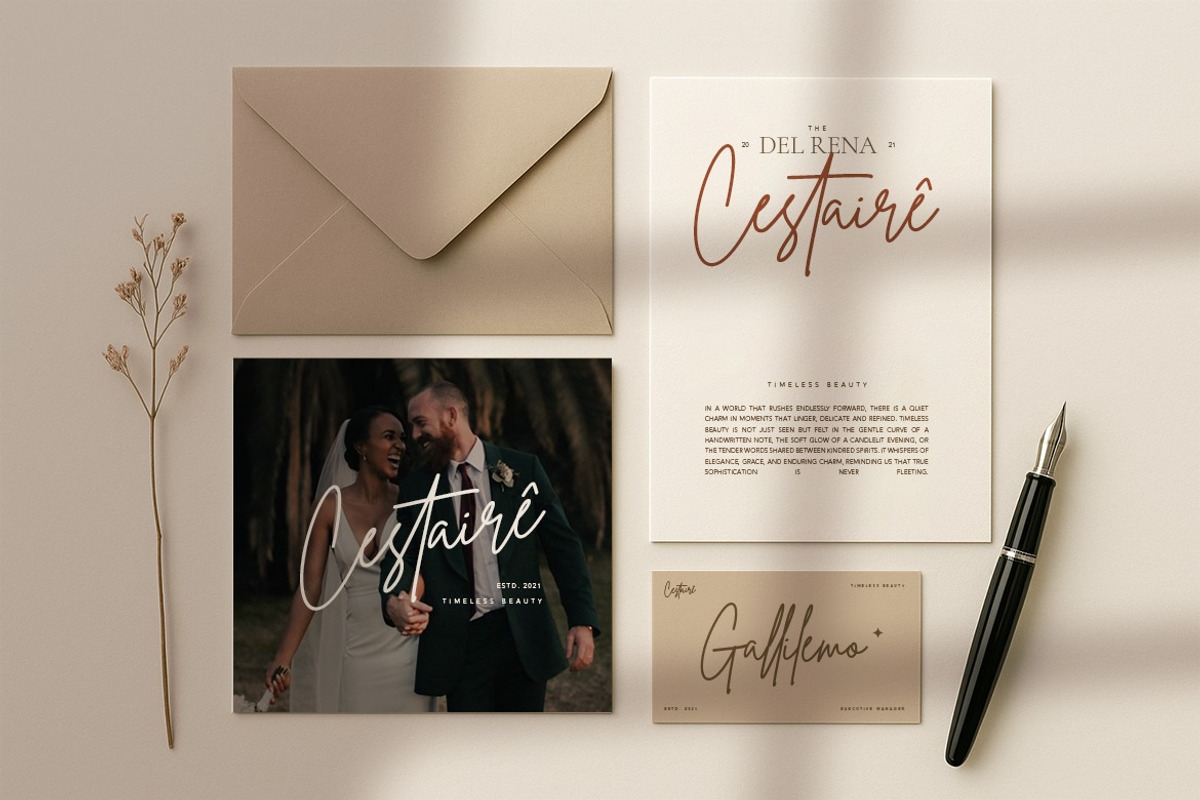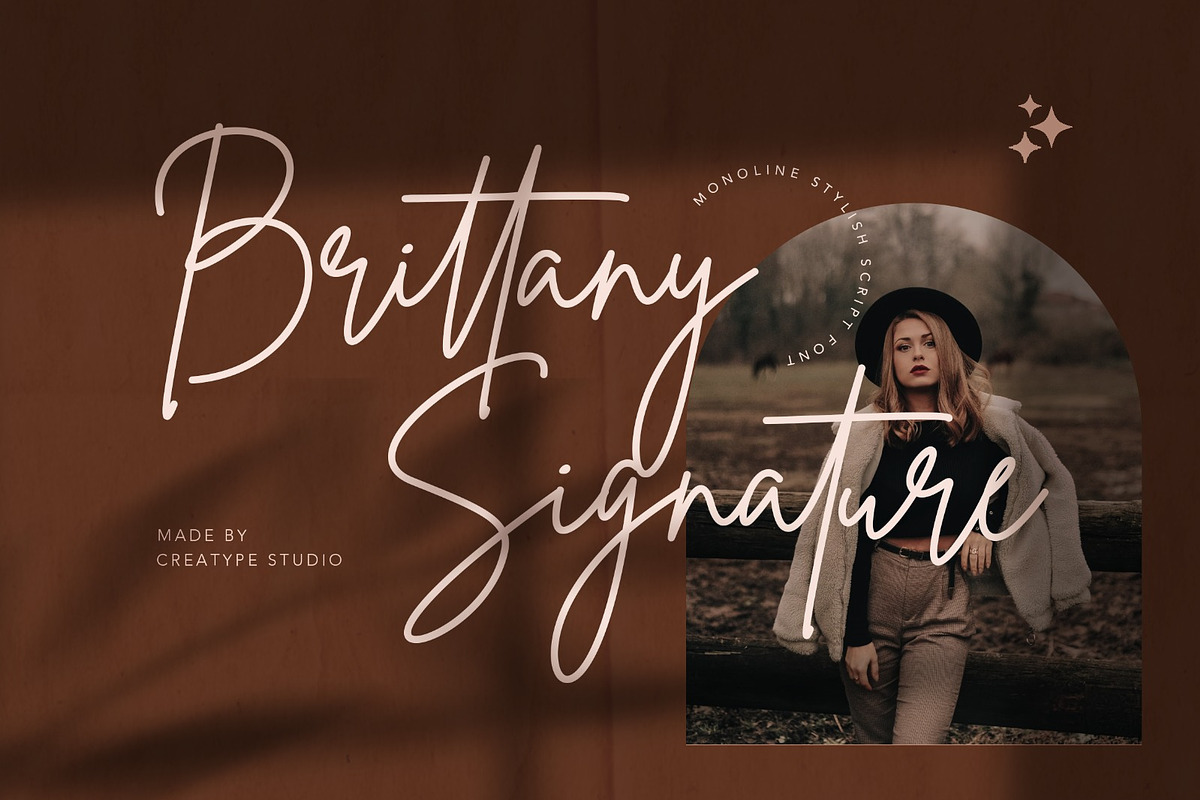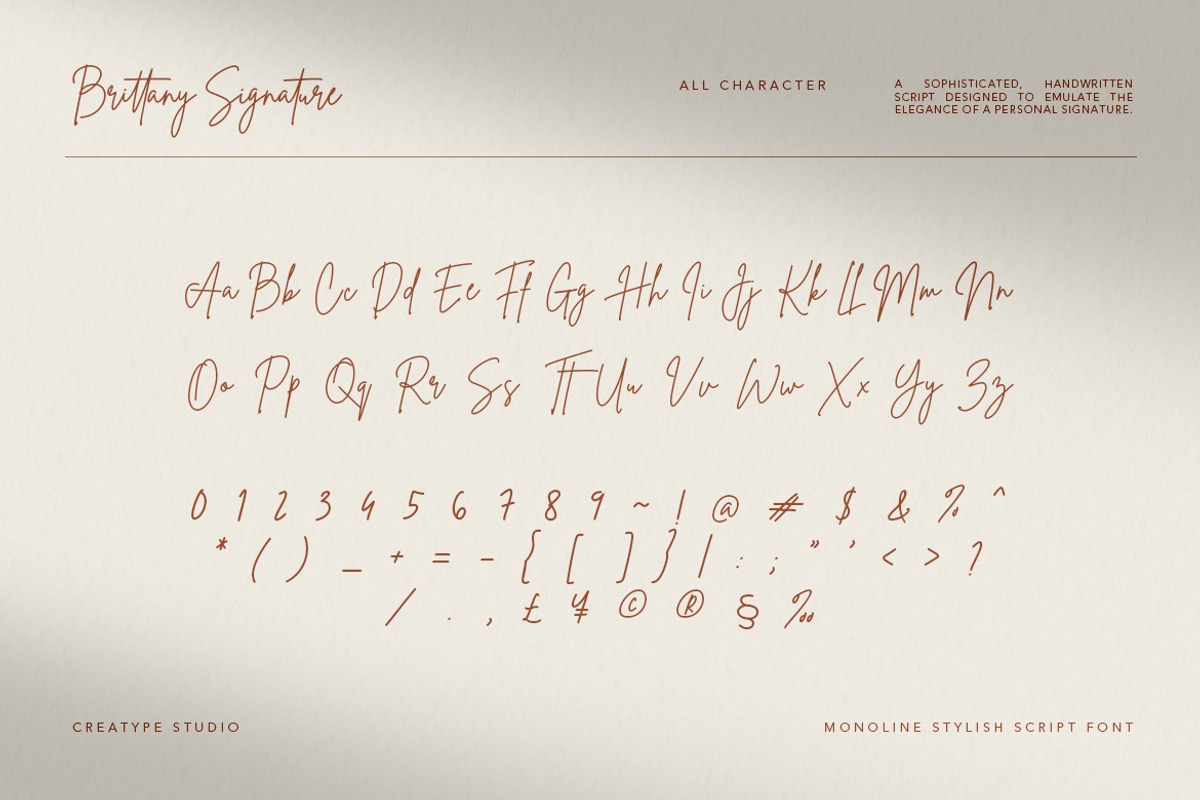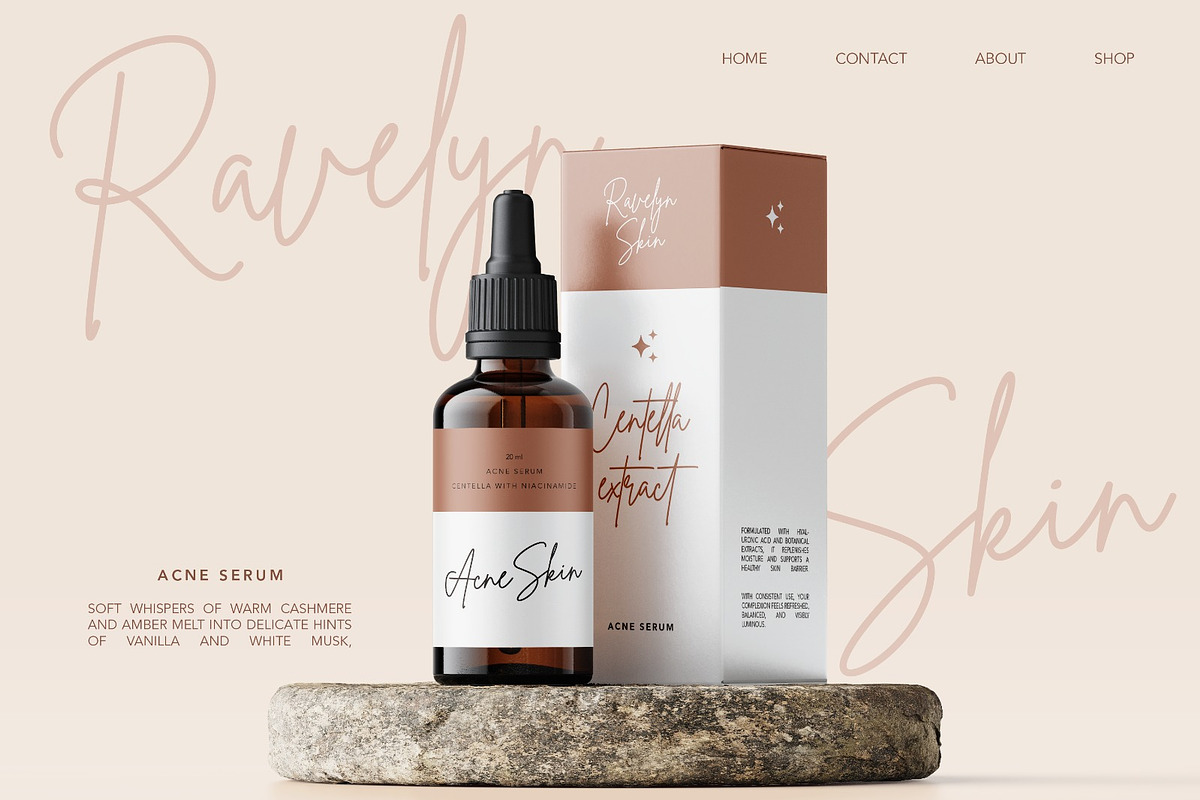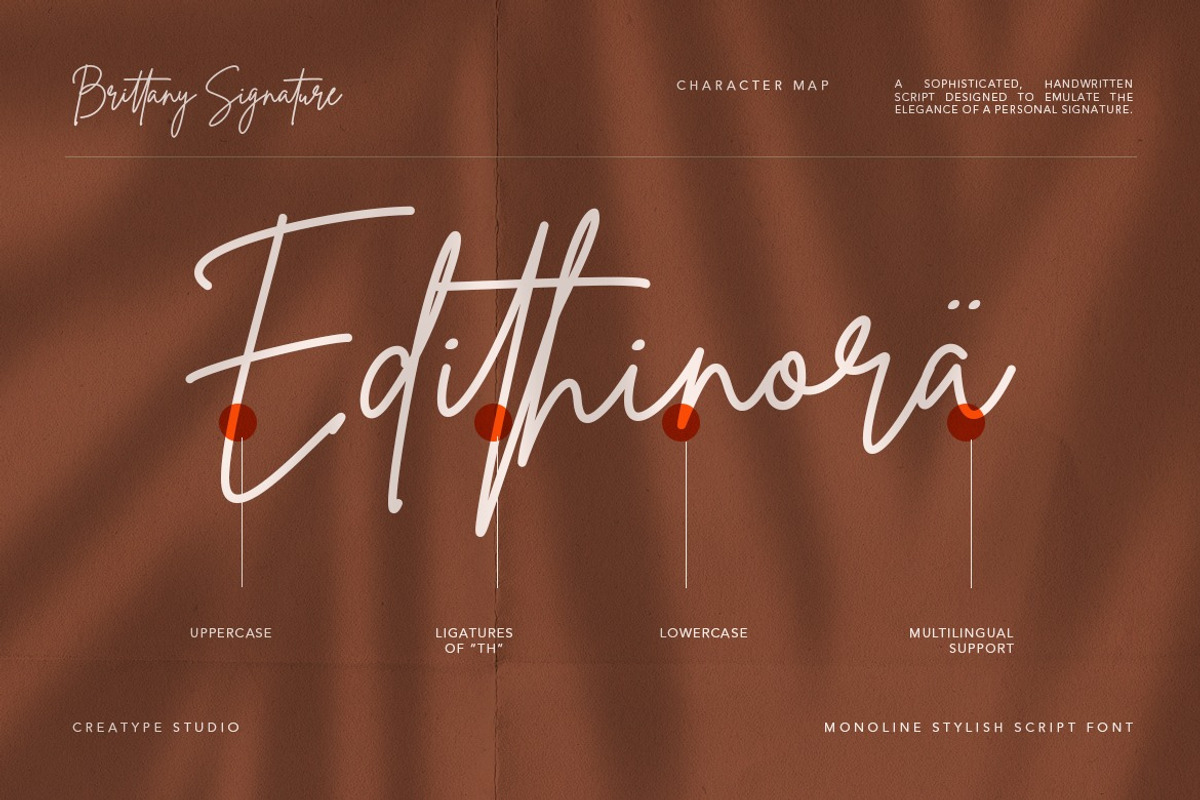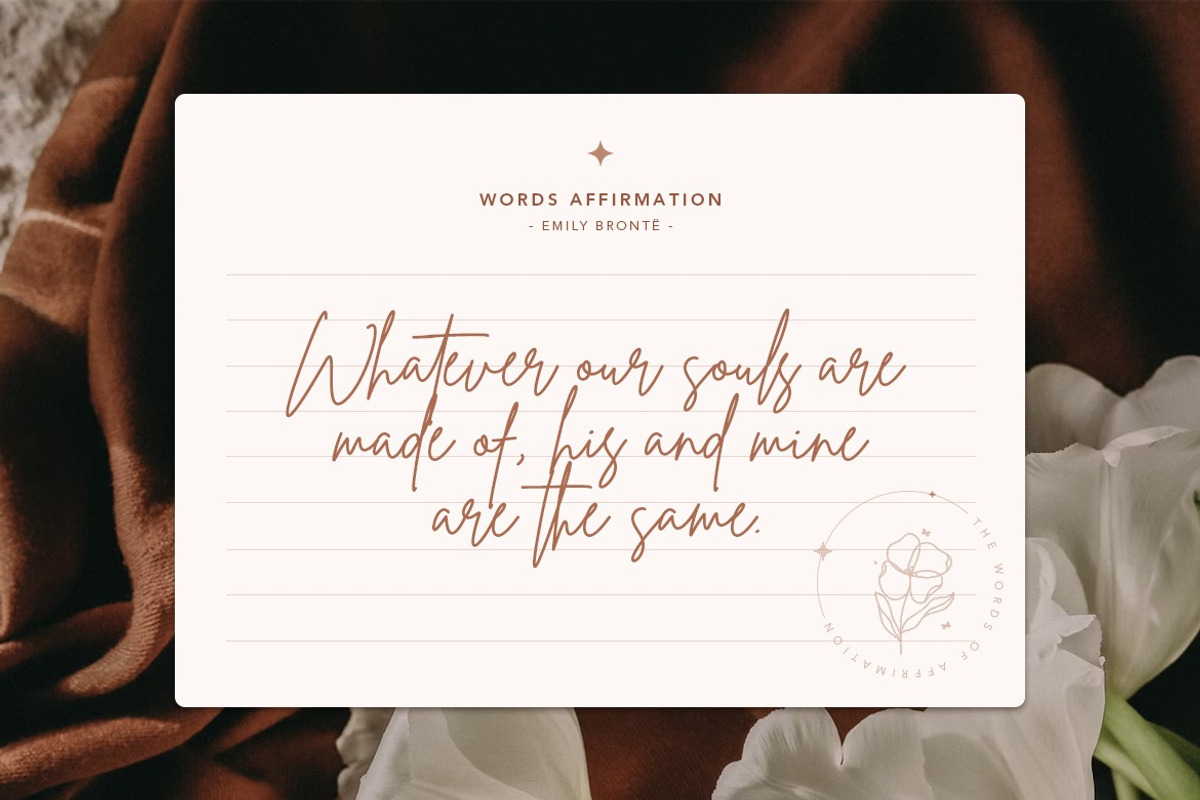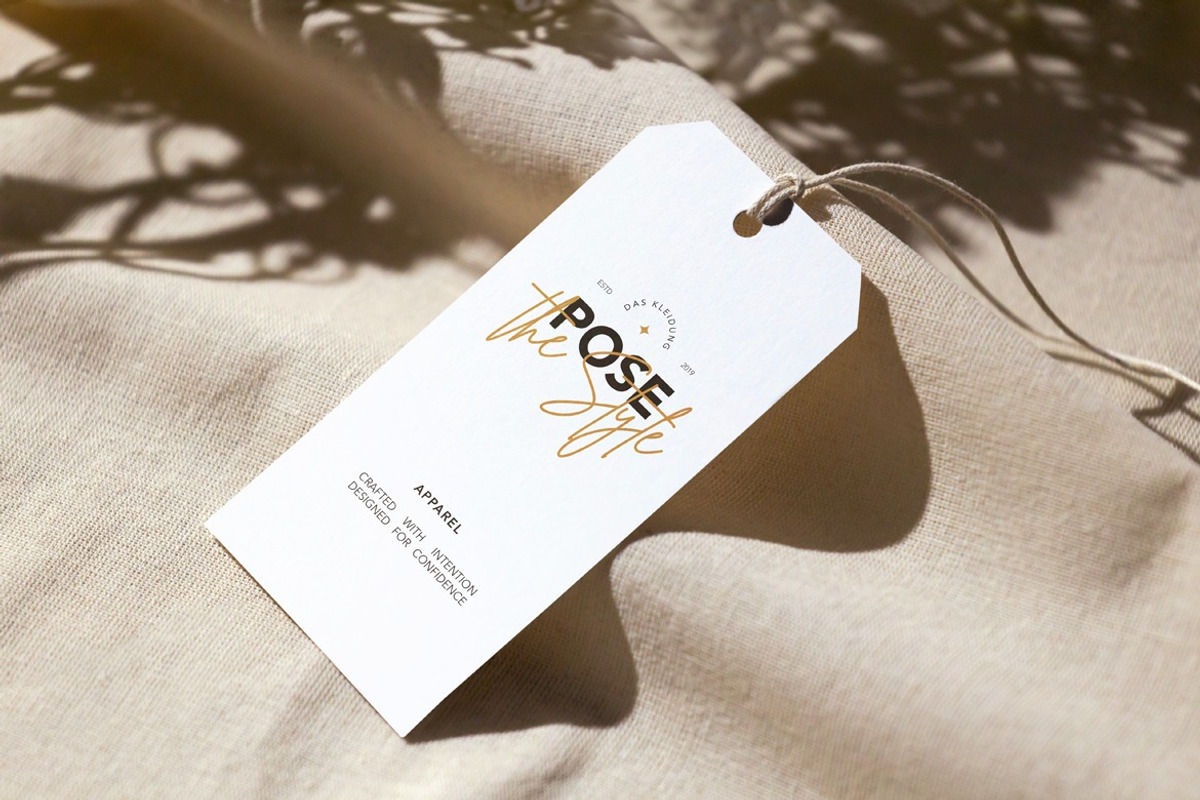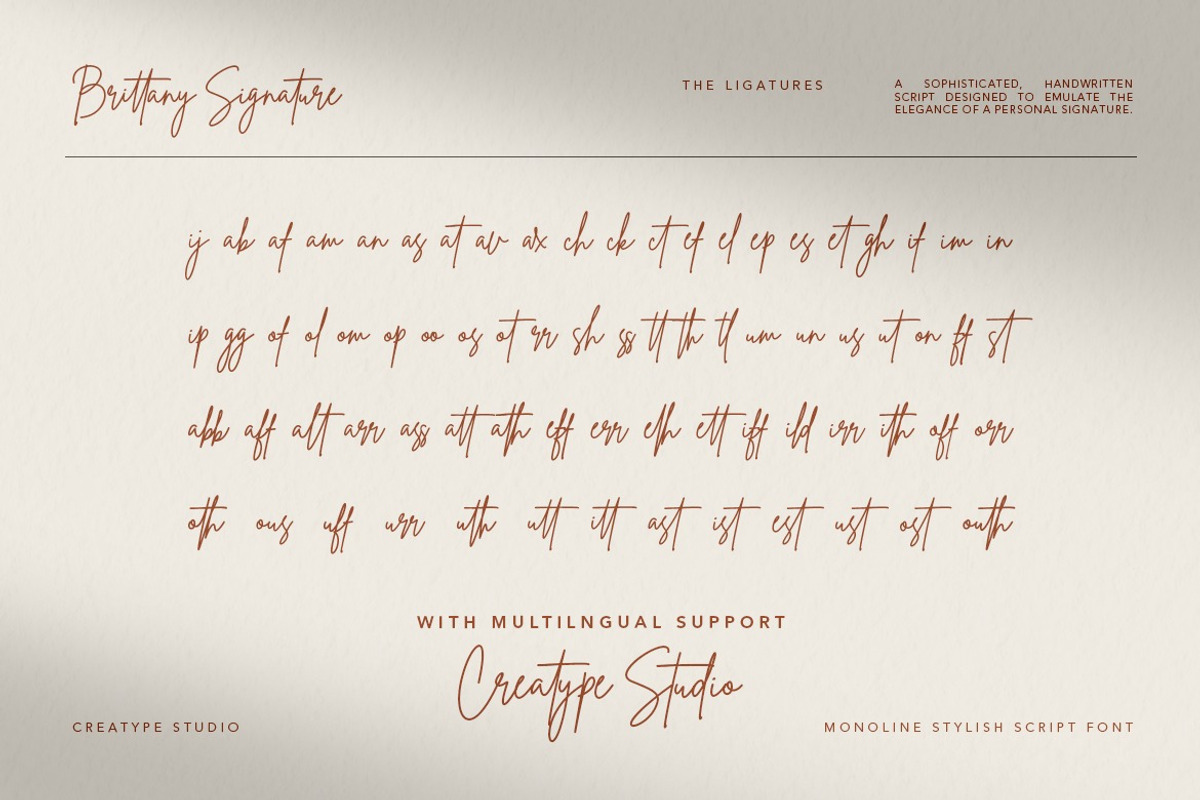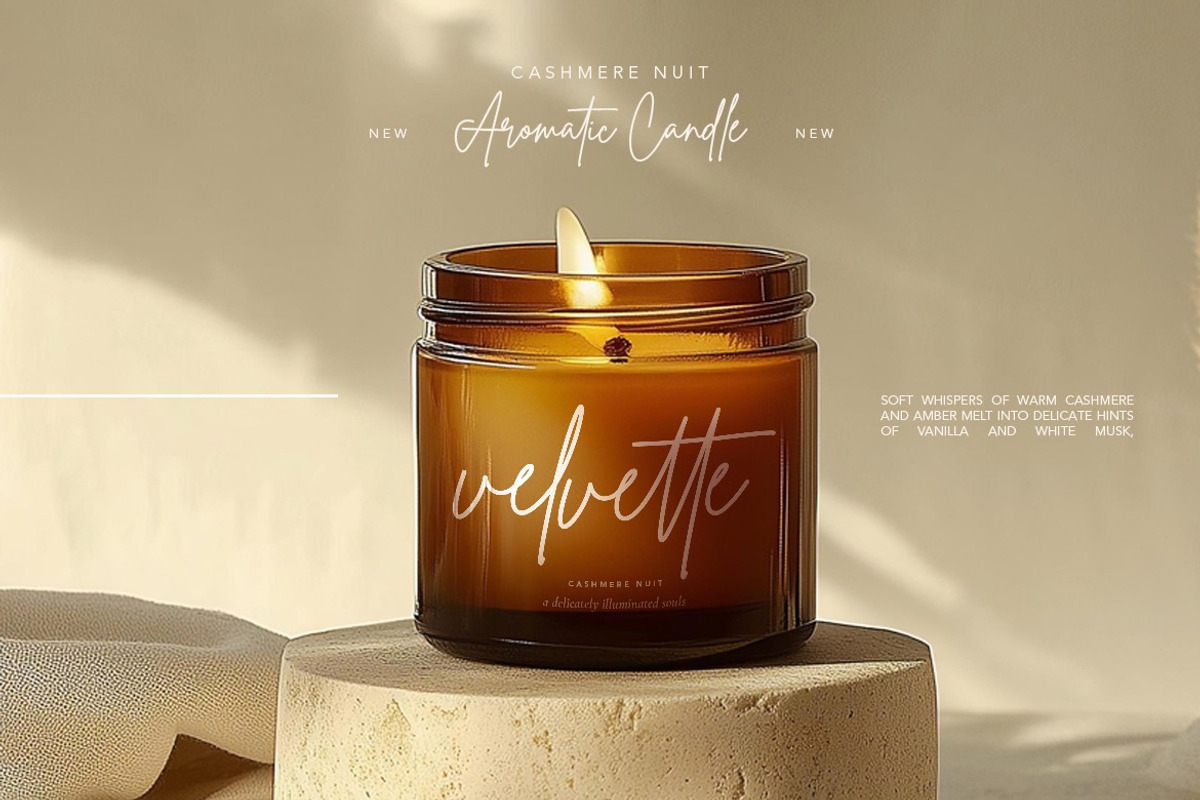
Brittany Signature Script
Brittany Signature Script consisting of a fashionable sophisticated signature-style script with its own unique curves and an elegant inky flow.
Brittany Signature Script is perfect for branding projects, logo, wedding designs, social media posts, advertisements, product packaging, product designs, label, photography, watermark, invitation, stationery and any projects that need handwriting taste.
- Standard & Multilingual glyphs
- Fonts include multilingual support for; Afrikaans, Danish, Dutch, French, German, Indonesian, Irish, Italian, Norwegian, Portuguese, Scottish, Spanish, Swedish, Swiss.